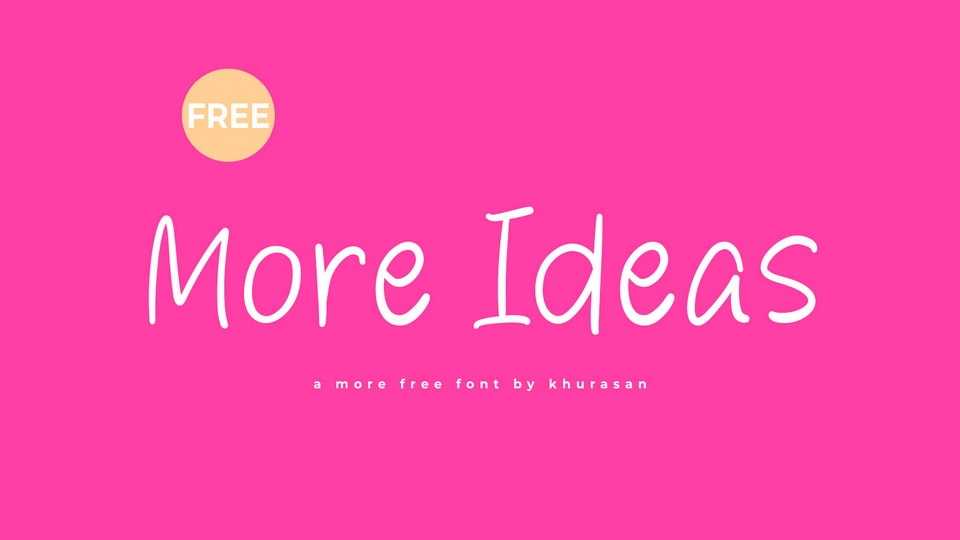
Download More Ideas font, a simple and natural handwritten typeface designed for effortless note-taking. More Ideas font is crafted with a relaxed and approachable style, mirroring the ease and fluidity of handwritten notes.